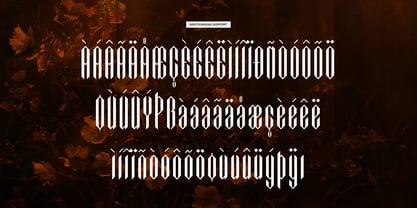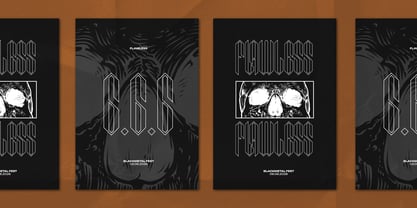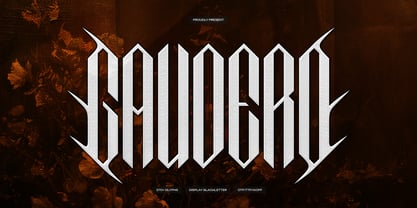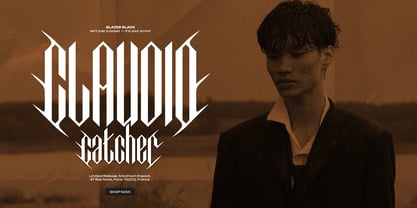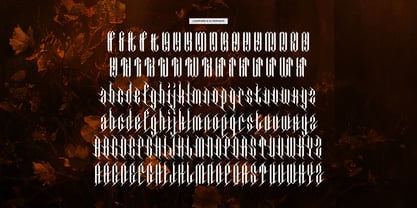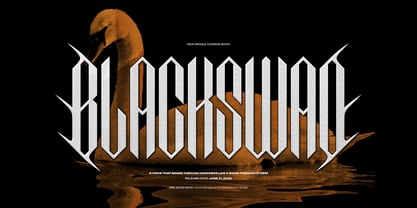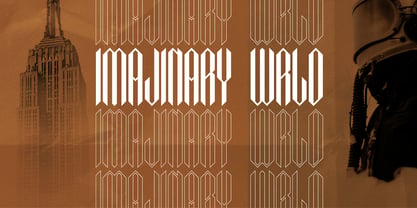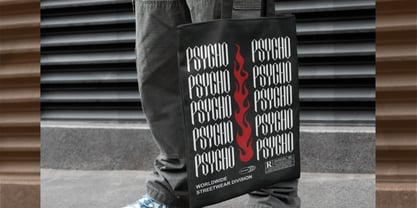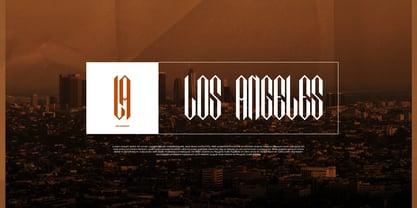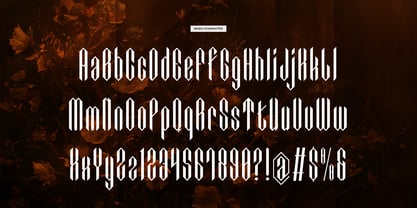
Gaudero
The Gaudero Font Family was designed by and published by Tini Fitriani. Gaudero contains 1 styles.
Gaudero | Display Blackletter, from Gracetypestudio, suitable for any projects such as: logos, branding projects, homeware designs, product packaging, mugs, quotes, posters, shopping bags, t-shirts, book covers, name card, invitation cards, greeting cards, label, photography, watermark, special events, and all your other lovely projects that need a Display Blackletter taste.
• Alternate and Ligature